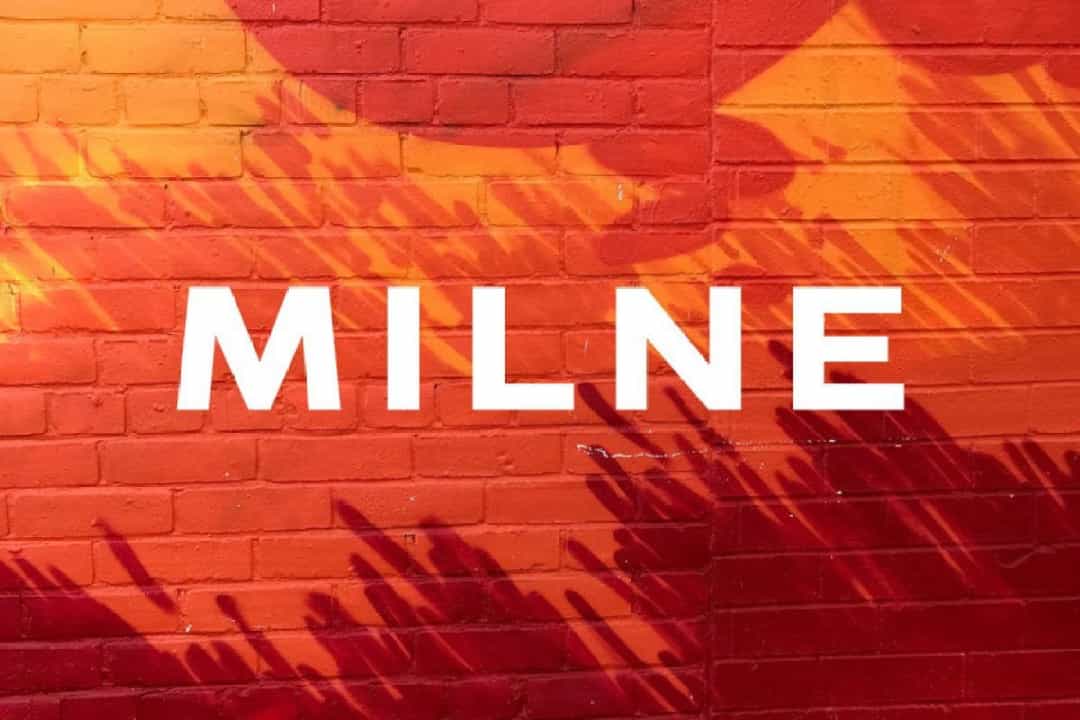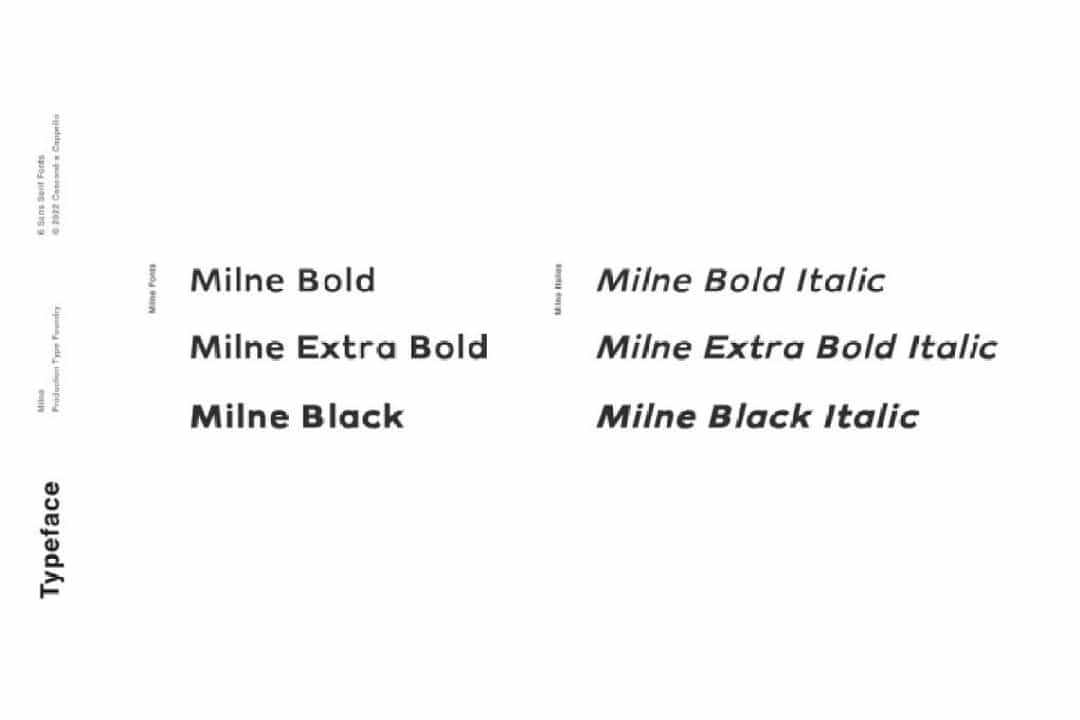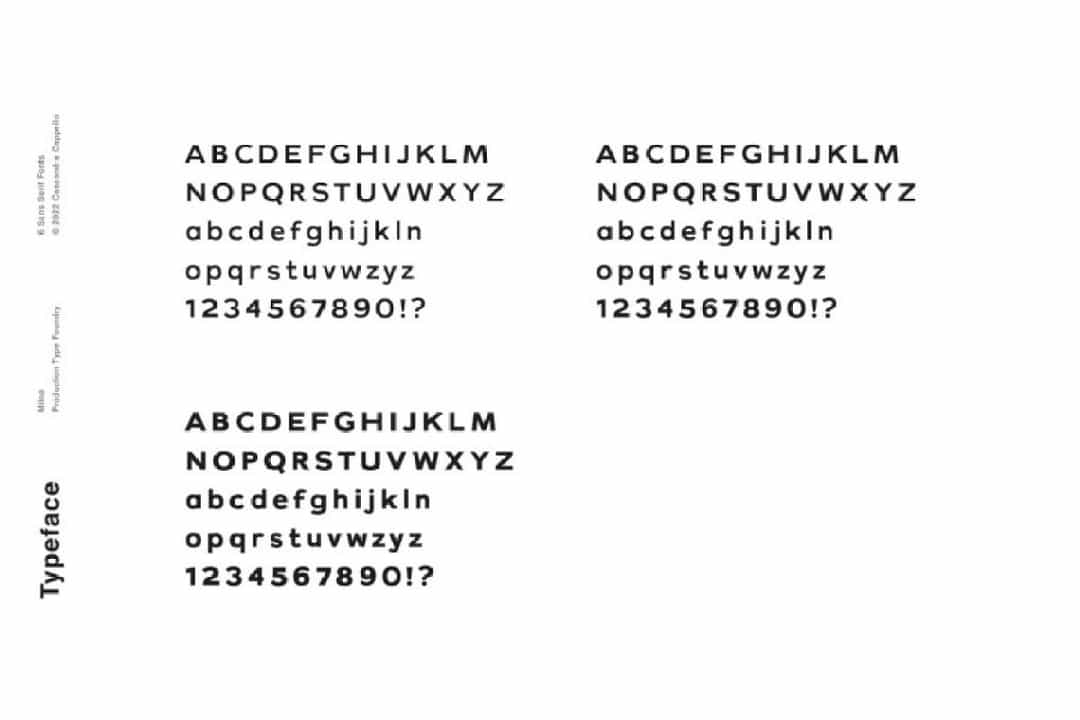
Milne is an elegant sans-serif Font family designed to add style and class to any work with its clean and sophisticated lines. Ideal for branding, packaging, projects, magazine covers weddings social media or simply conveying words on any background surface, Milne makes any piece stand out and stand out!